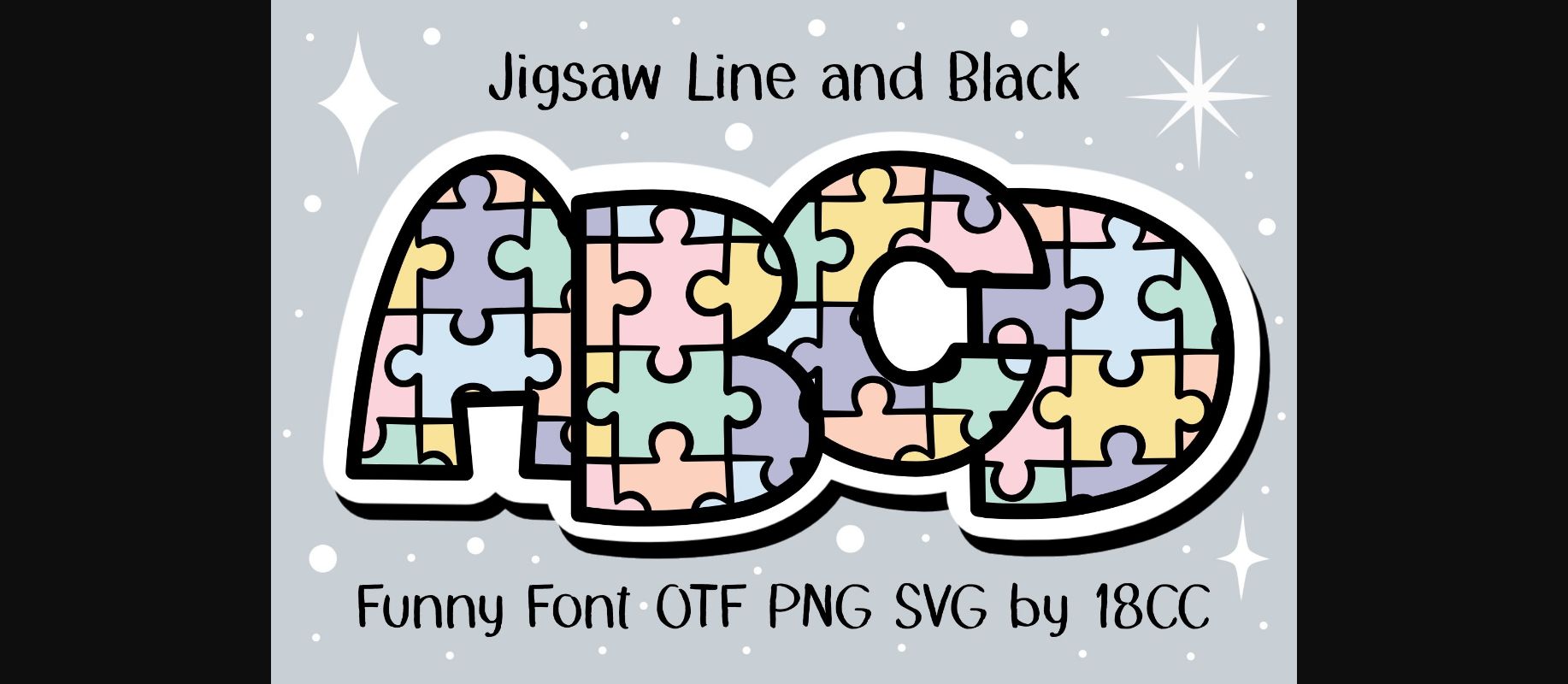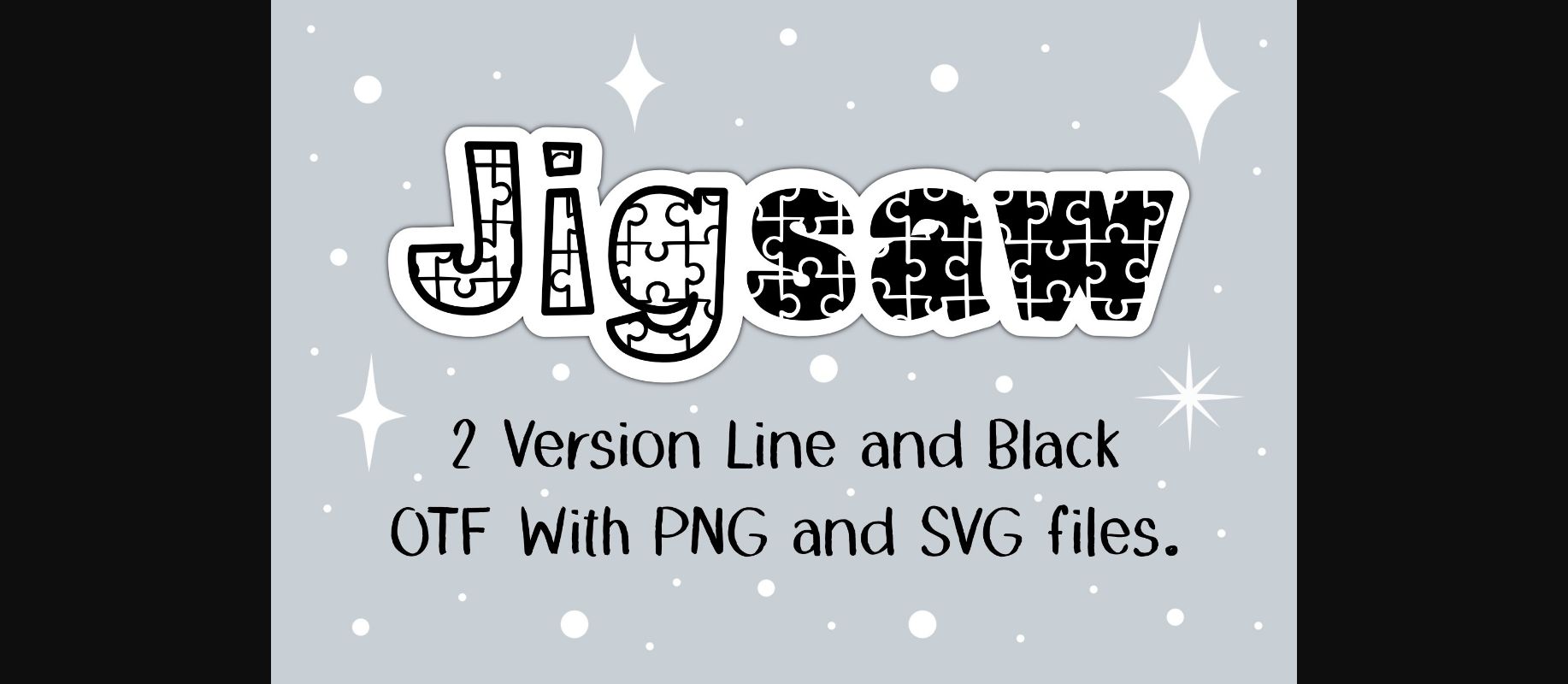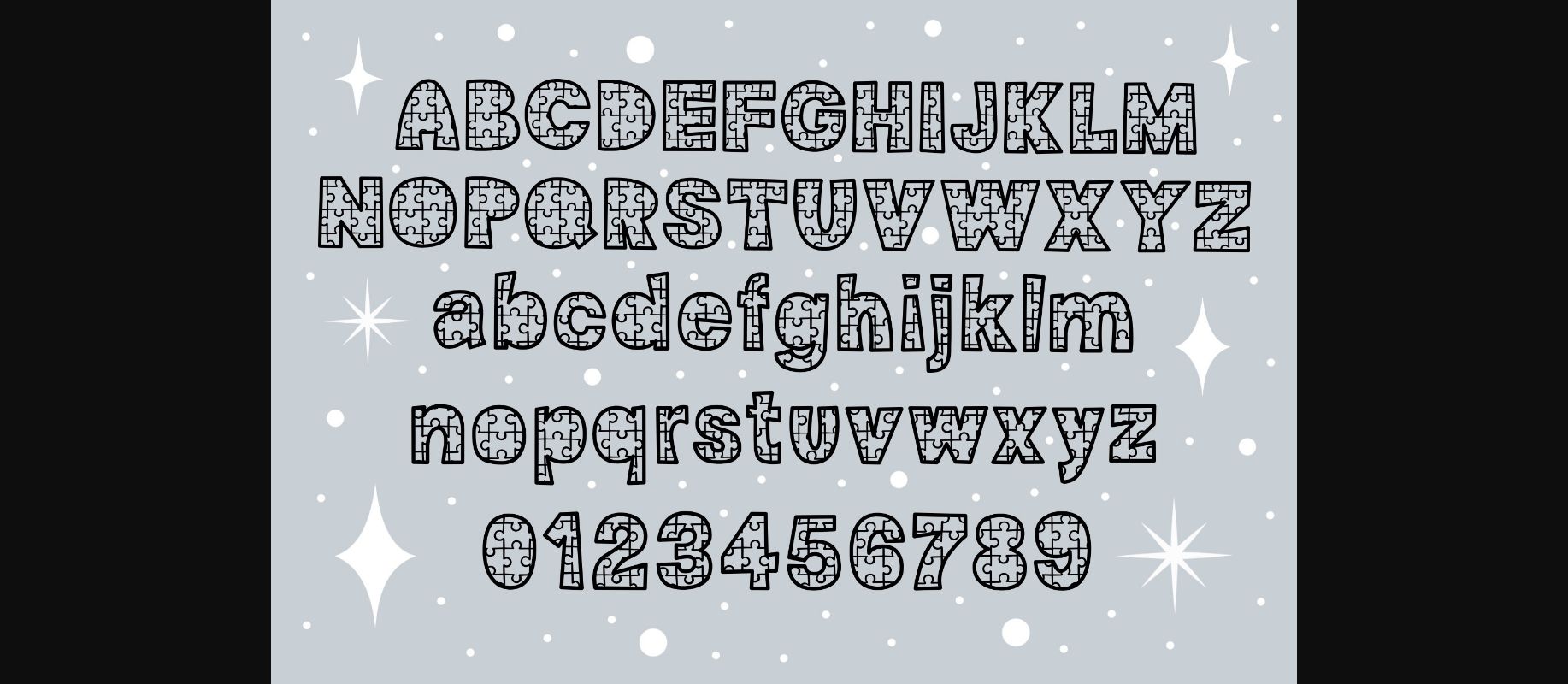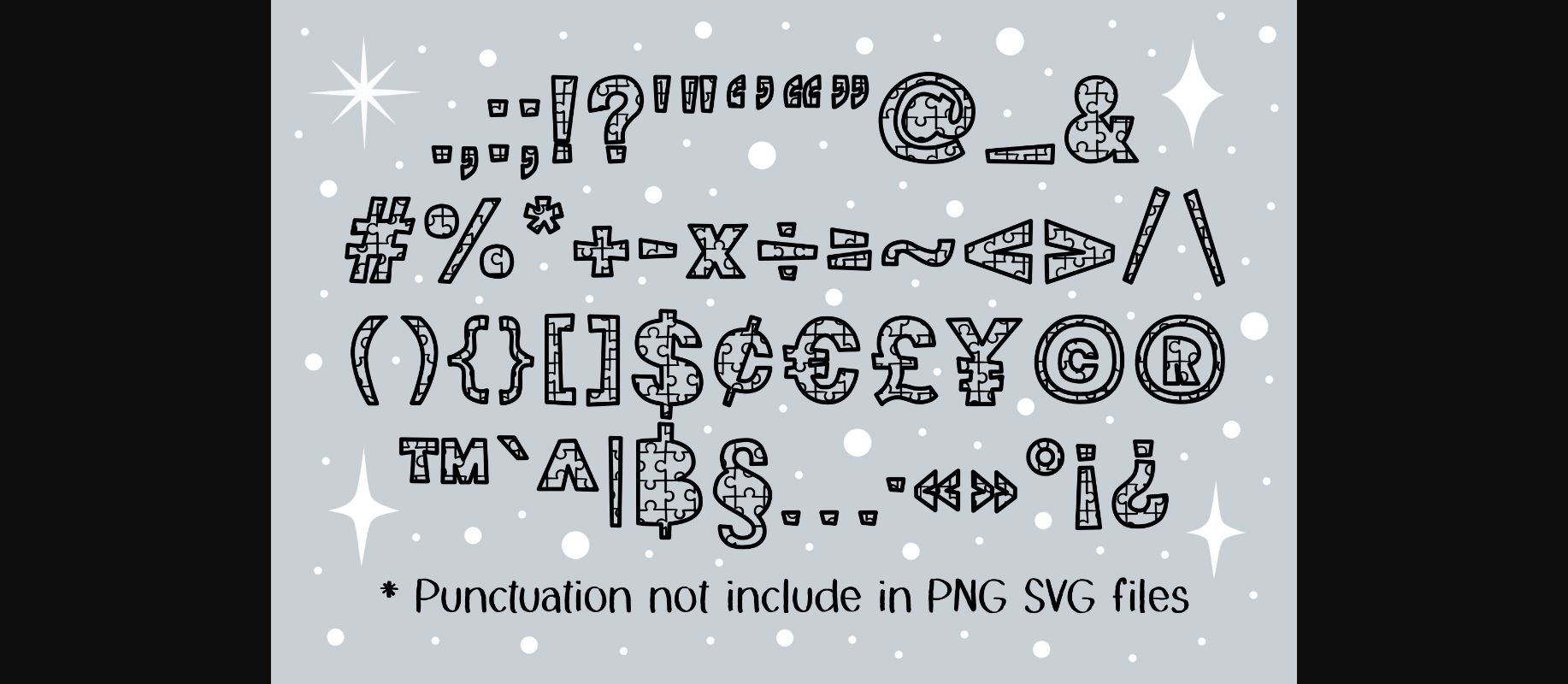
About Jigsaw Font
Jigsaw is a fun and playful decorative font that adds a puzzling twist to your designs. Each letter is crafted like a puzzle piece, creating a unique and engaging look. Perfect for projects that need a touch of whimsy and creativity, Jigsaw brings a sense of playful charm to your text. Whether you’re creating invitations, posters, or anything in between, this font adds a delightful puzzle-inspired flair to your work, making it stand out with a touch of fun.